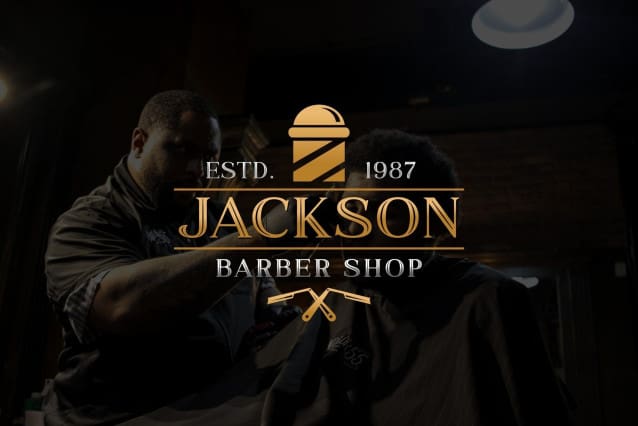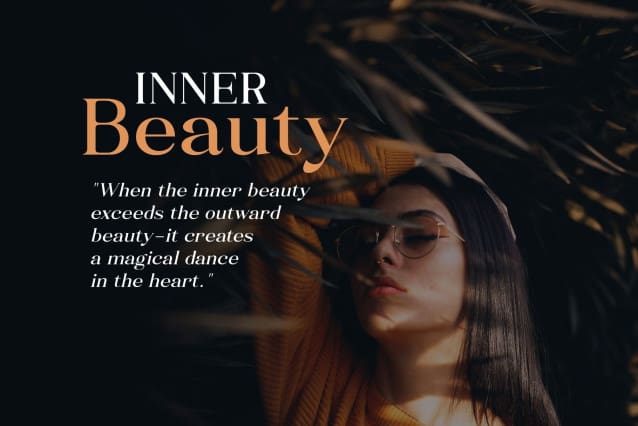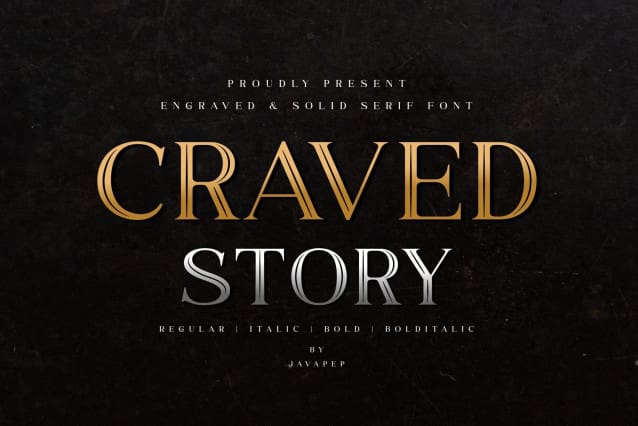
Craved Story Font
Craved Story Font is a splendid serif font family. Every character has an engraving detail so you can create the most stylish and elegant impression for your designs. CravedStory Font is also perfect for use in vintage-style projects. You will find both engraved and solid tyles you can mix and match for outstanding results!